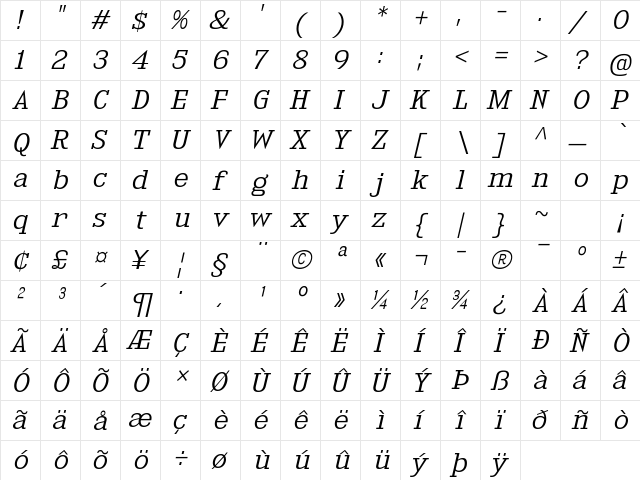
Kingsbridge Expanded Light Italic
Design Context for Kingsbridge Typeface
Kingsbridge offers clean, dependable letterforms without strong stylistic allegiance, making it a practical choice for designers who need flexibility. The dynamic lean of this cut emphasises speed and emphasis in any layout. The delicate stroke weight brings airiness and refinement to layouts.
Pro Tip: Use Kingsbridge for emphasis, pull quotes, and subheadings where its slanted energy can add rhythm to the layout.